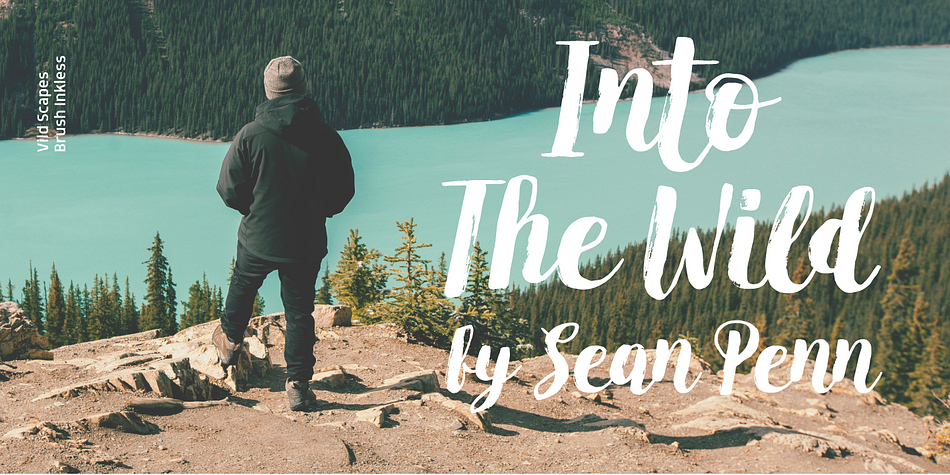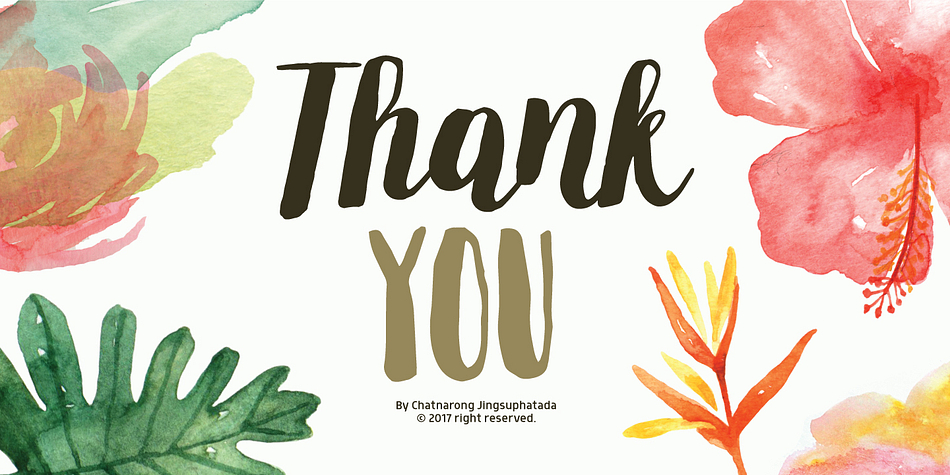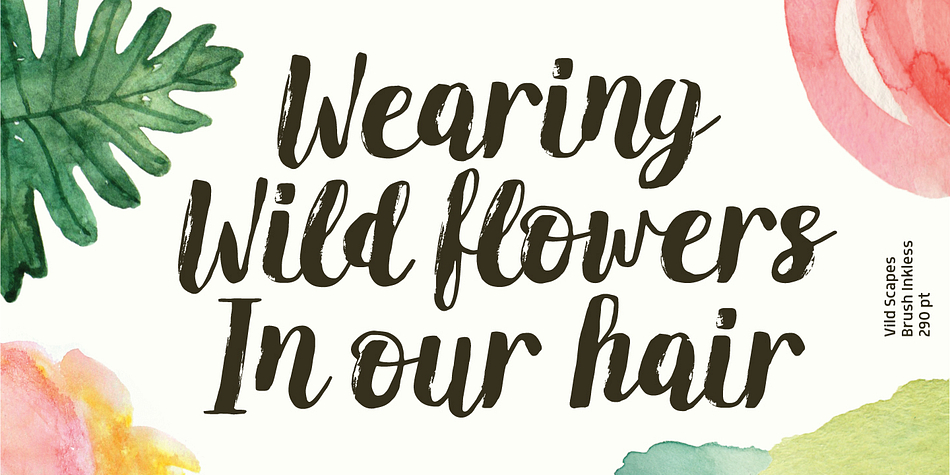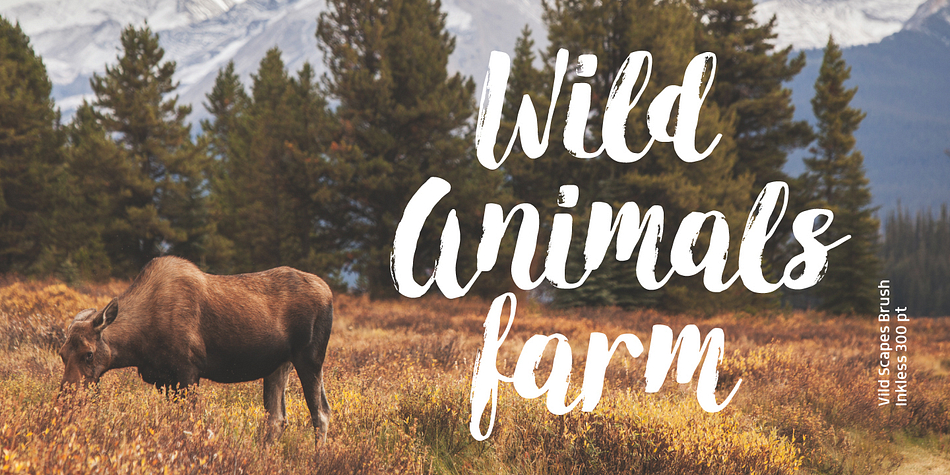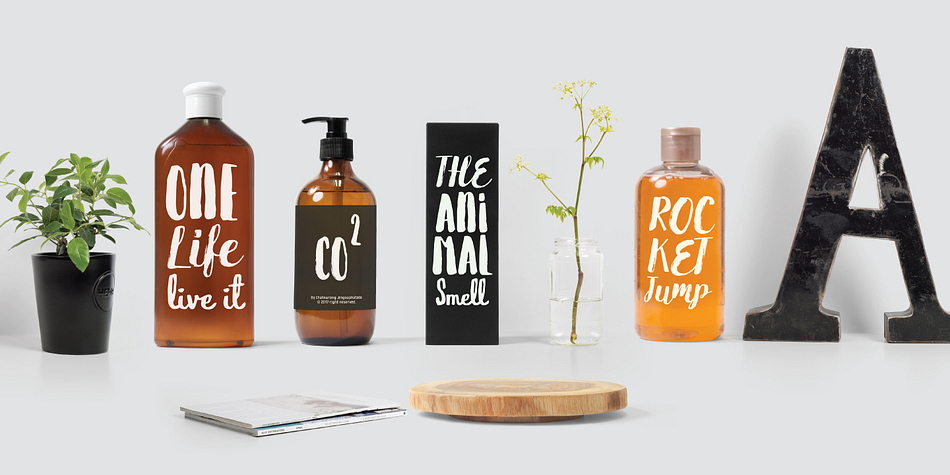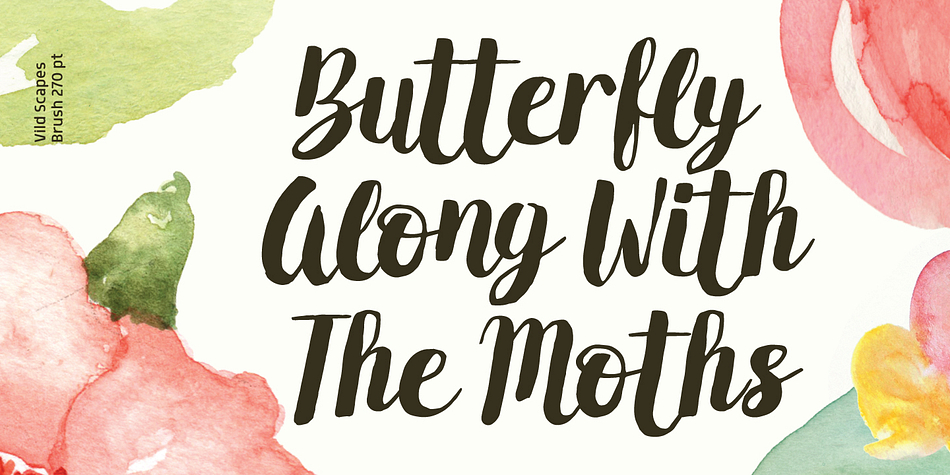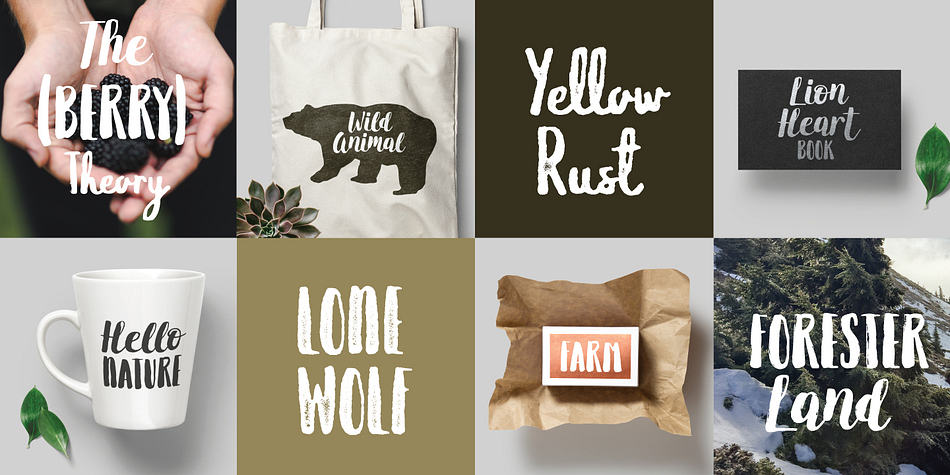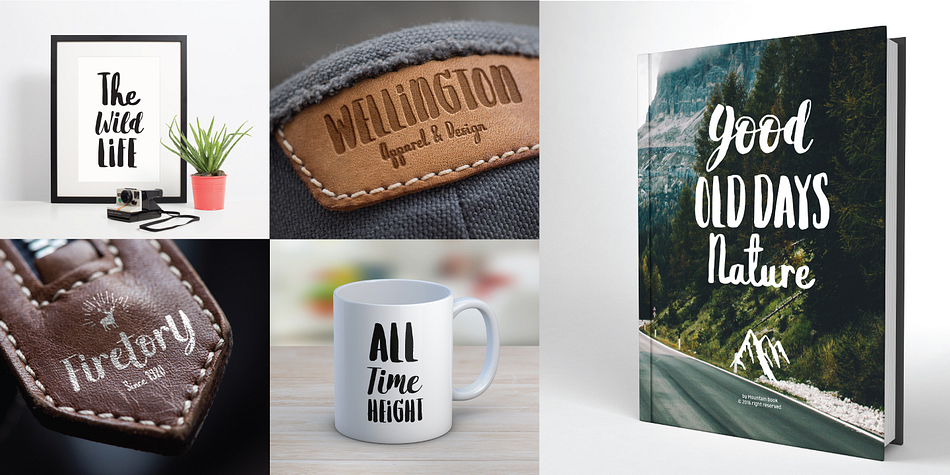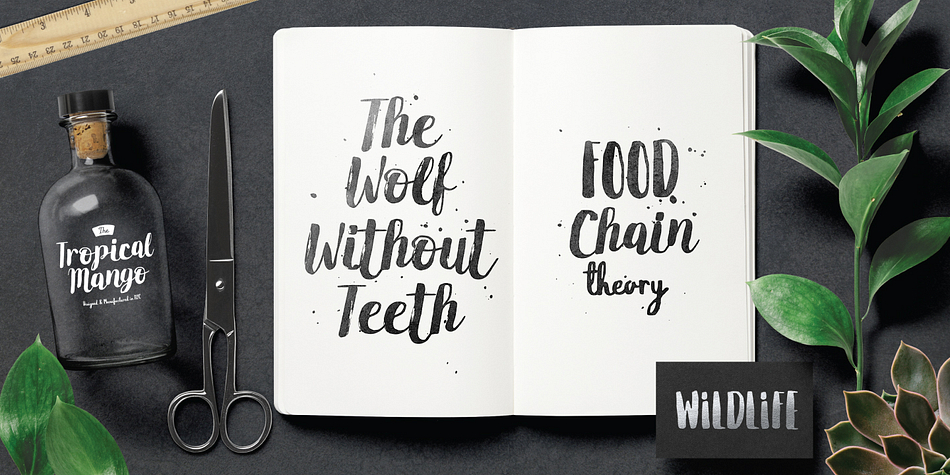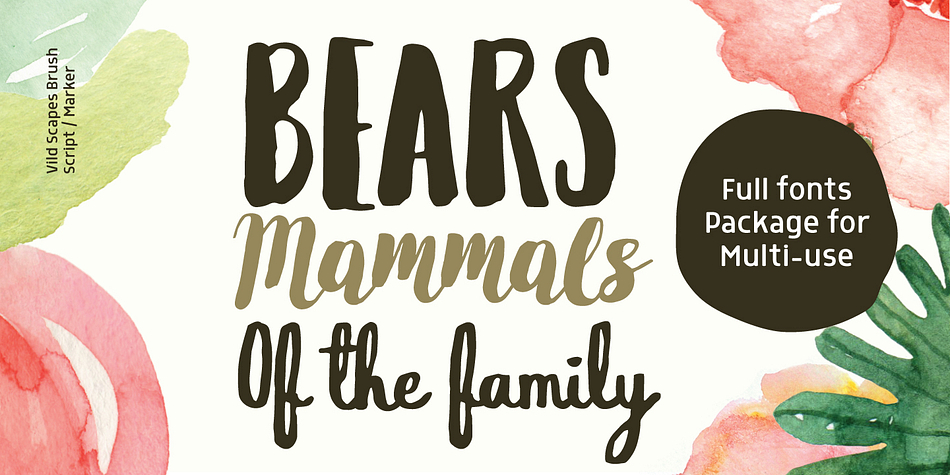
Vild Scapes is a multiple classification font family. This typeface has ten styles and was published by Typesketchbook.
With the intention to create a family of modern calligraphy, Vild Scapes offers different feels in different effects. The Normal option cuts back the imperfections created from freehand writing, while Inkless keeps those details. There’s also the Rust option, which imitates letterpress printing effects. In addition, the family comes in three designs: Brush (big paint brush style), Script (small paint brush style), and Marker (brush tip marker style) offering you more possibilities for creativity.